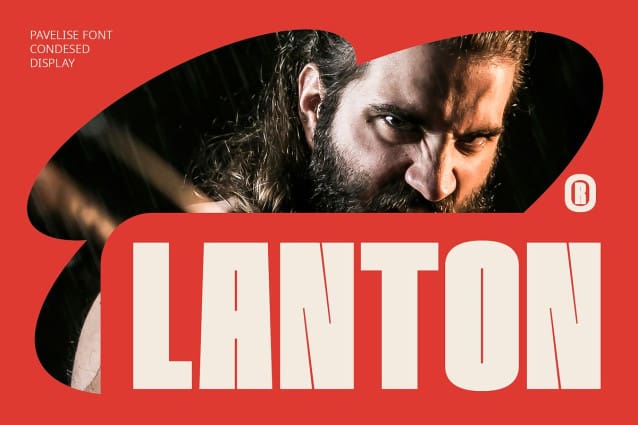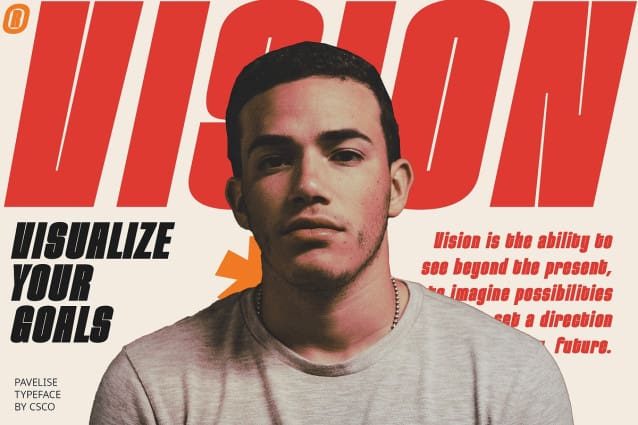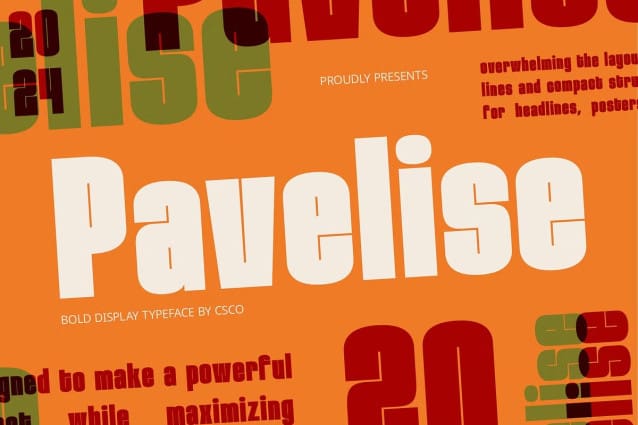
Pavelise Font
Pavelise Font is a bold and condensed sans serif font. Perfect for designs requiring a strong, clear, and easily readable appearance, this font ensures your message stands out with a modern and professional look.
Ideal for Modern Designs Perfect for headlines, banners, and other display purposes, Pavelise guarantees your text is both seen and remembered. Its bold and condensed style makes it an excellent choice for creating modern, clean, and professional designs across various media.
Versatile and Effective Despite its boldness, Pavelise remains versatile and effective. Its sans serif format makes it suitable for a wide range of projects, from branding to digital designs, where a font that is both strong and clear is essential for making a statement.
Perfect for Professional Appeal Pavelise Font is ideal for projects requiring a font with a professional touch. Whether you’re designing a poster, logo, or website, this font will undoubtedly add a distinct and memorable element to your designs.